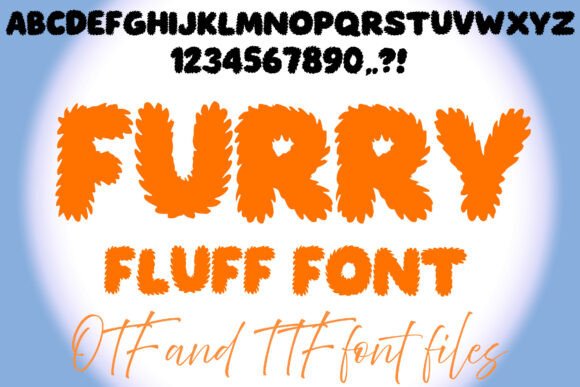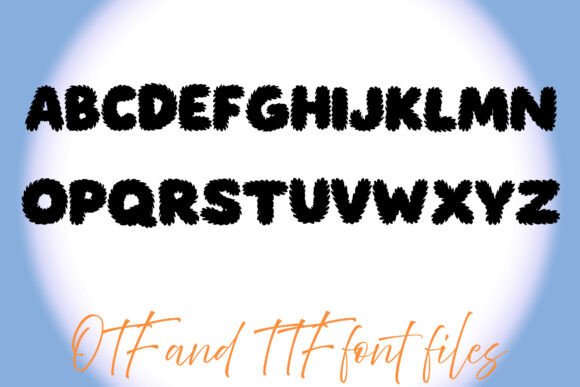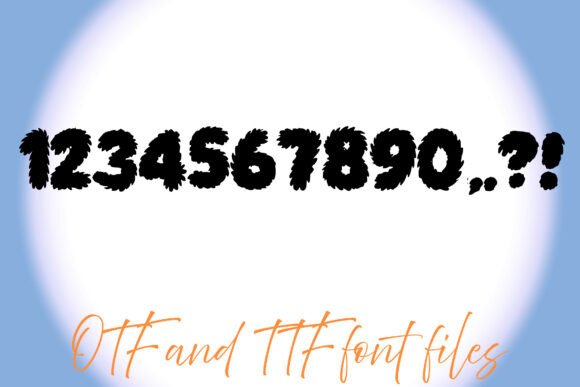
Furry Fluff Font
About the Furry Fluff Font
Presenting Furry Fluff Font, a unique and stylish typeface that will make your work stand out. Get wild with Furry Fluff Font – a bold and fluffy typeface perfect for animal-themed branding, kids’ books, costume parties, or cartoon design. It’s soft, fun, and full of fuzzy personality!
Furry Fluff Font’s playful energy makes it ideal for children’s books, playful branding, and projects needing a friendly, approachable feel. It works exceptionally well in headlines, short text blocks, and packaging design where its unique texture adds visual interest. Avoid using it for body text or long paragraphs; its bold strokes and irregular forms hinder readability at smaller sizes.
Pair Furry Fluff with clean sans-serif fonts like Open Sans for a balanced contrast, or a classic serif such as Garamond for a touch of sophistication. For a more whimsical feel, consider pairing it with a playful script font like Pacifico.
Its overall personality is best described as bold, friendly, and slightly mischievous, lending itself to brands targeting a younger demographic or projects needing a fun and energetic aesthetic.